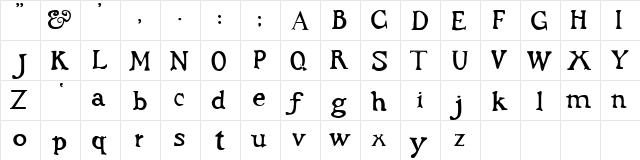
Candlewood Regular
Design Context for Candlewood Typeface
Candlewood echoes the hand-painted signage and woodblock typography of the American frontier, with a warm, rugged personality.
A natural fit for craft spirits, ranch branding, rodeo events, and Americana-inspired design work.
Font Pairing: Combine Candlewood with a simple slab or neutral sans — period-accurate companions reinforce the vintage feel without competing for attention.
Pro Tip: Use Candlewood for short, impactful bursts of text — it shines in poster headlines and product names rather than extended copy.